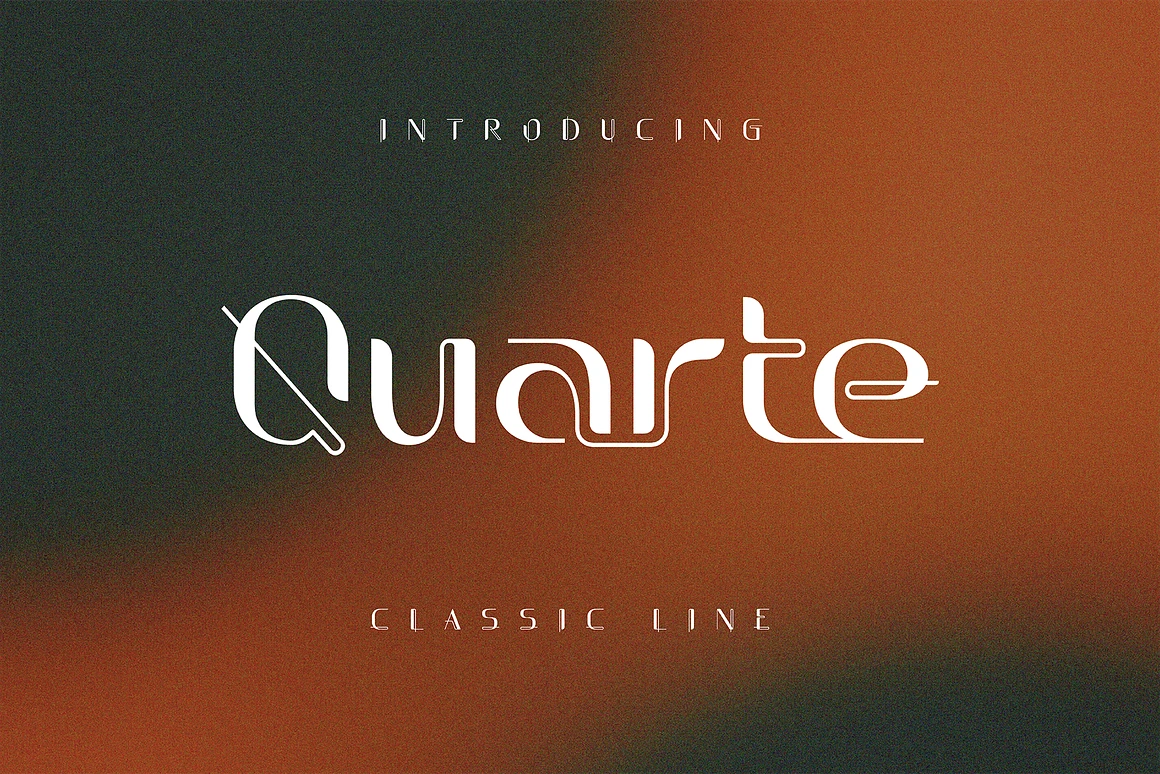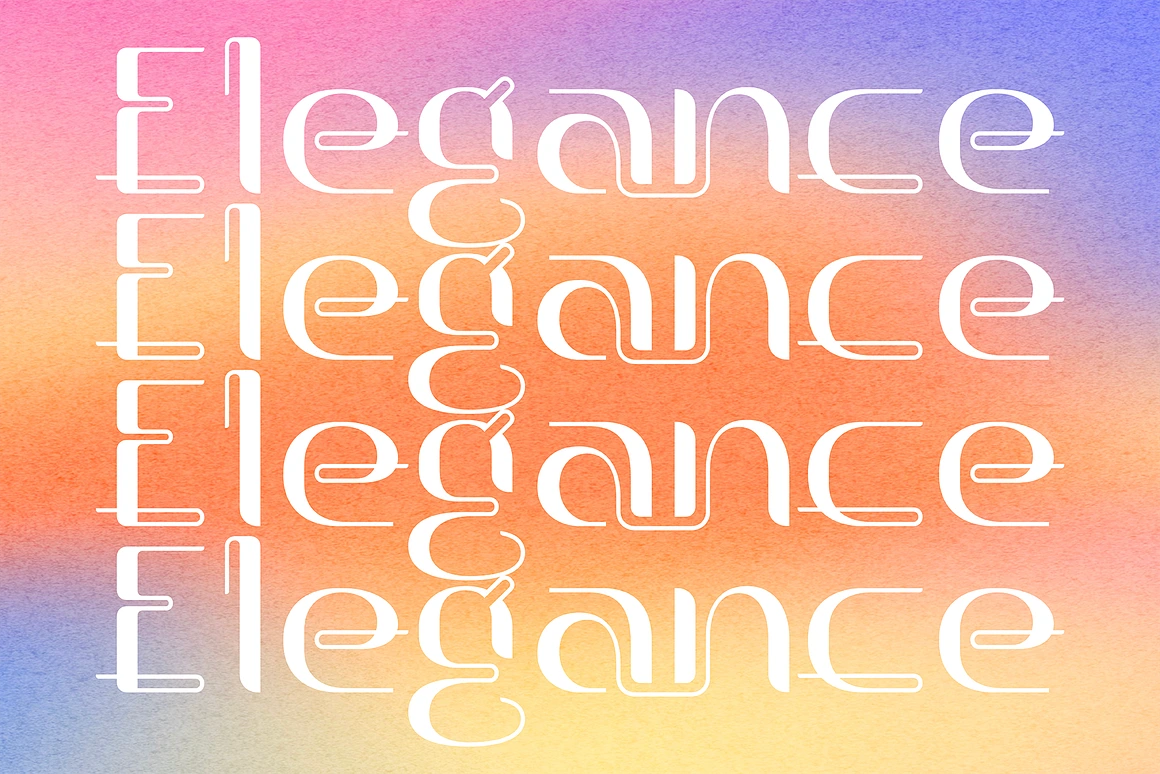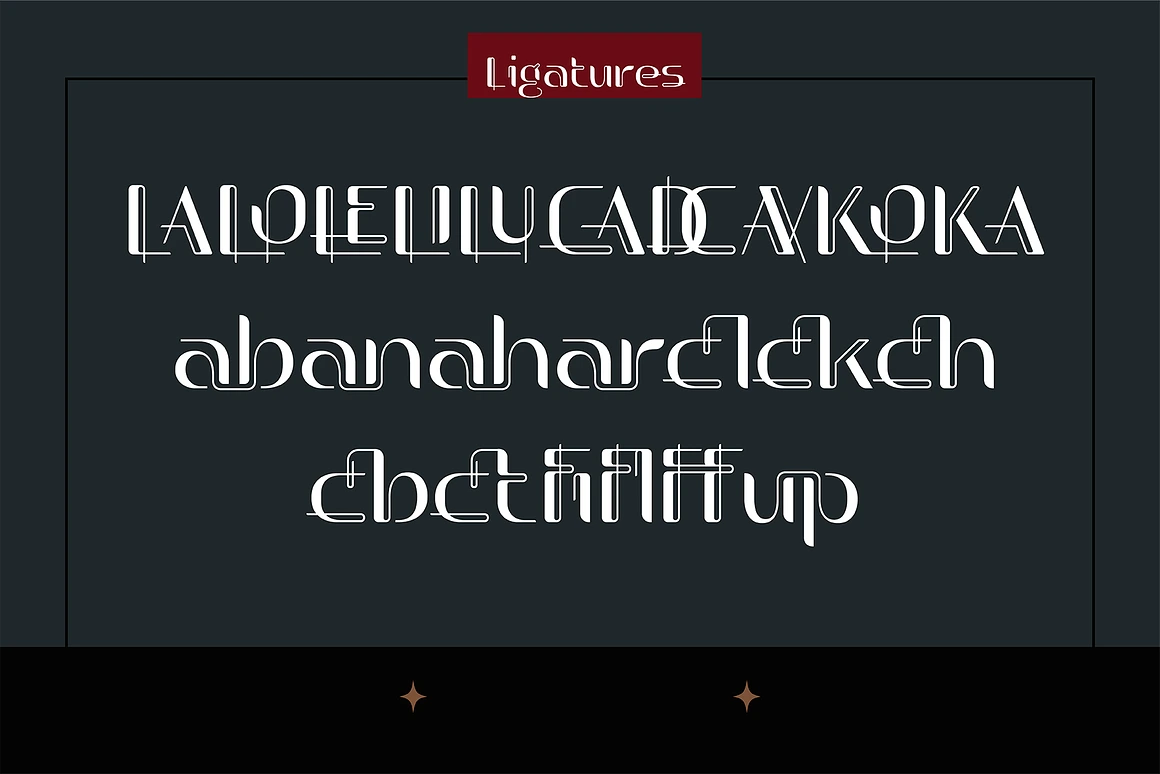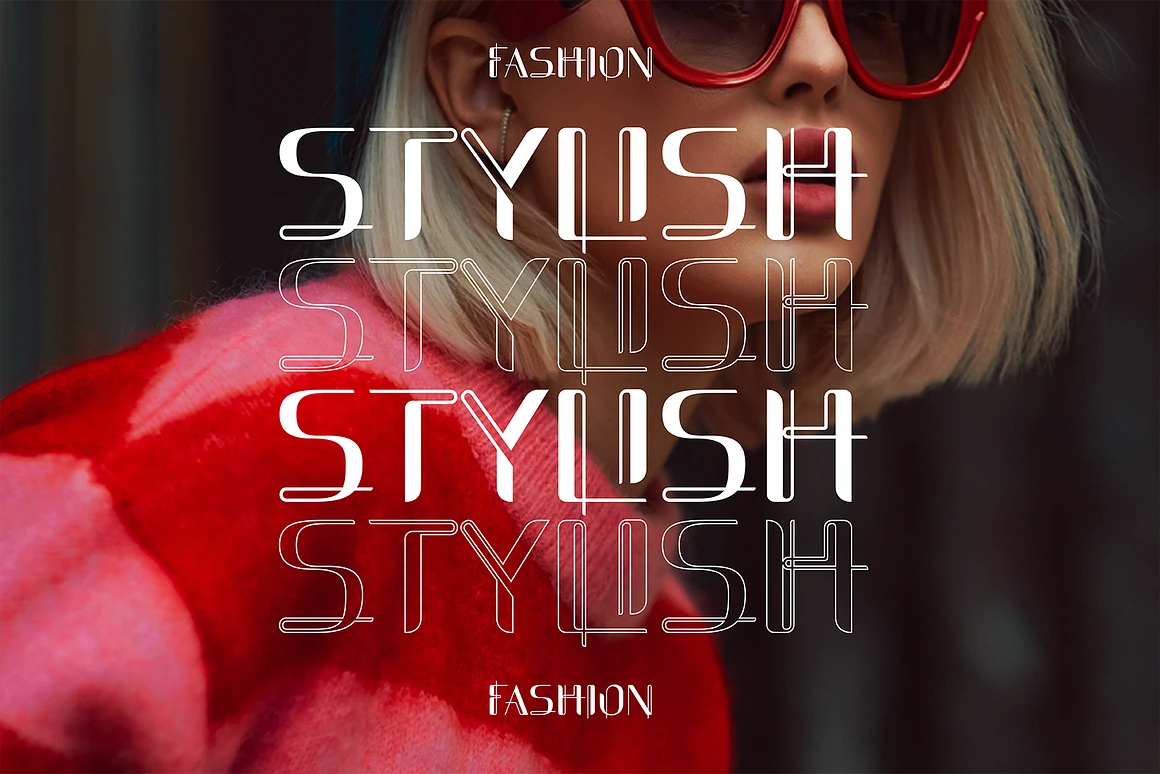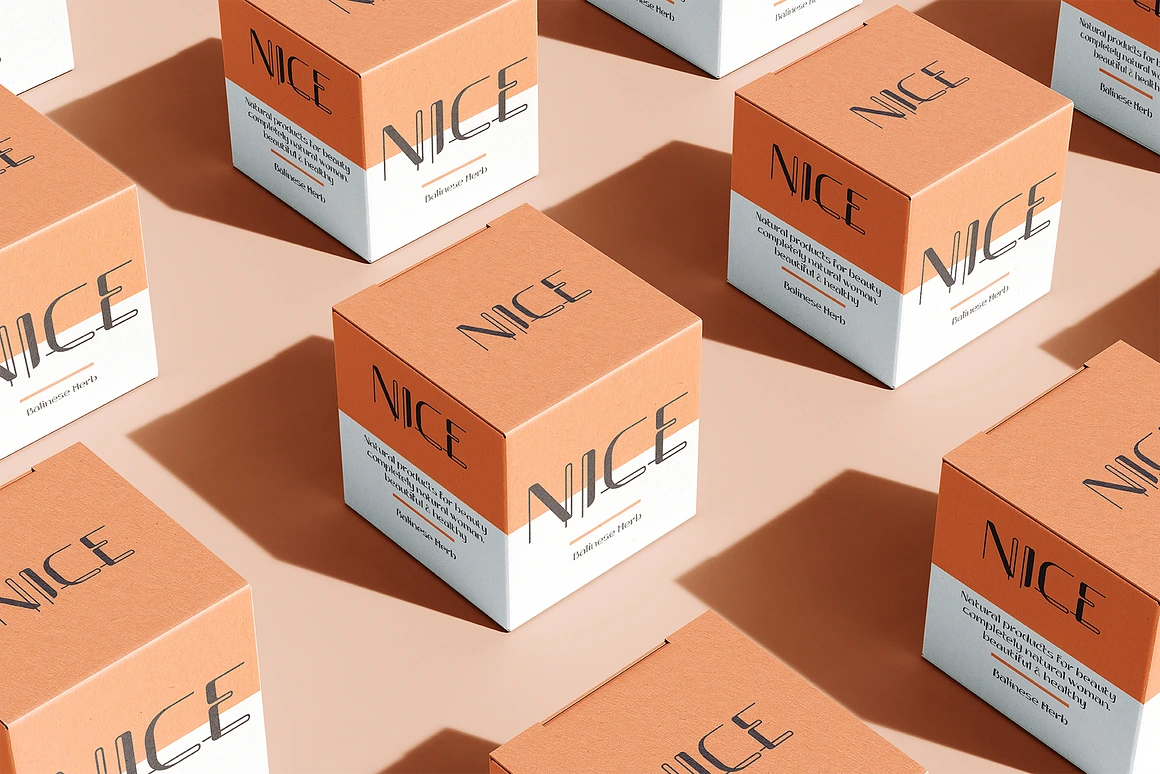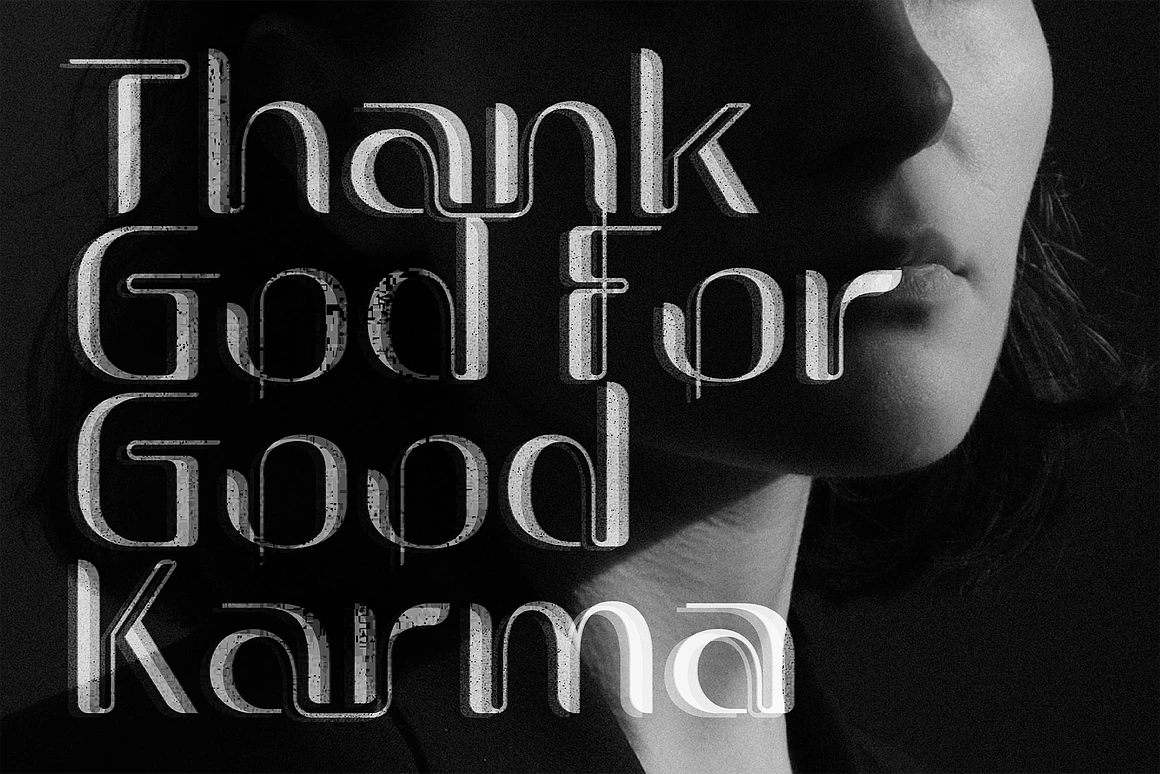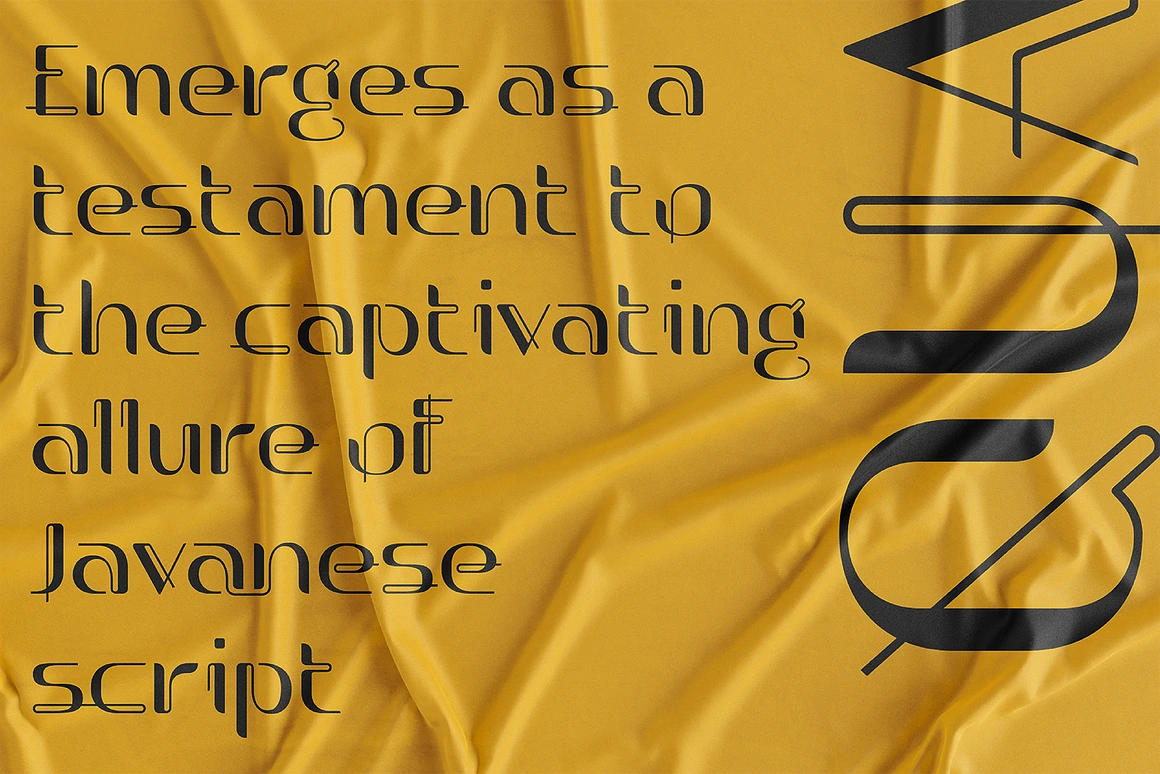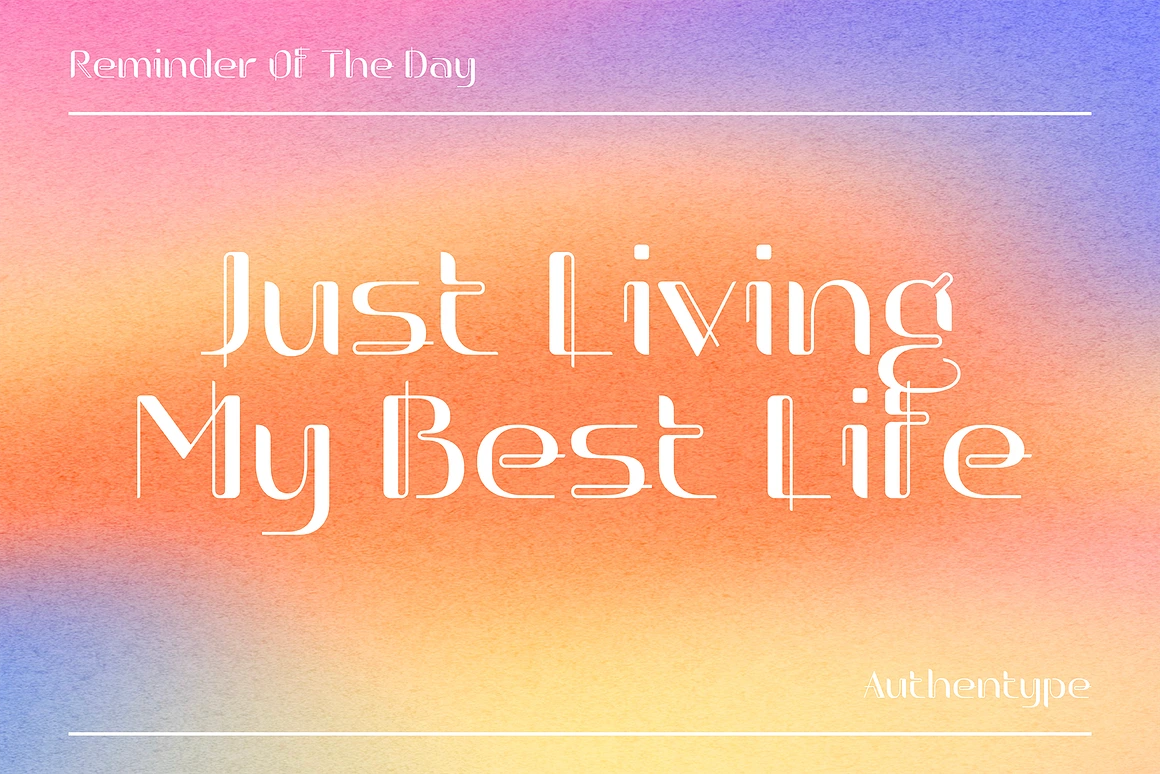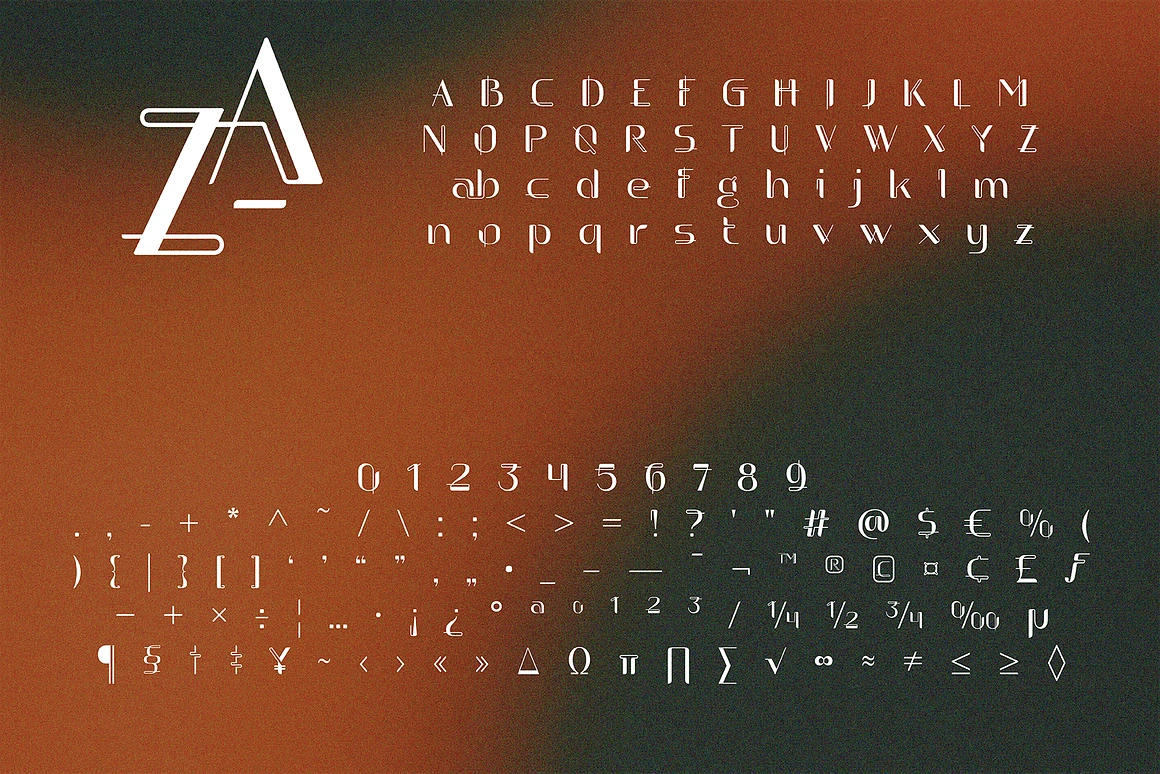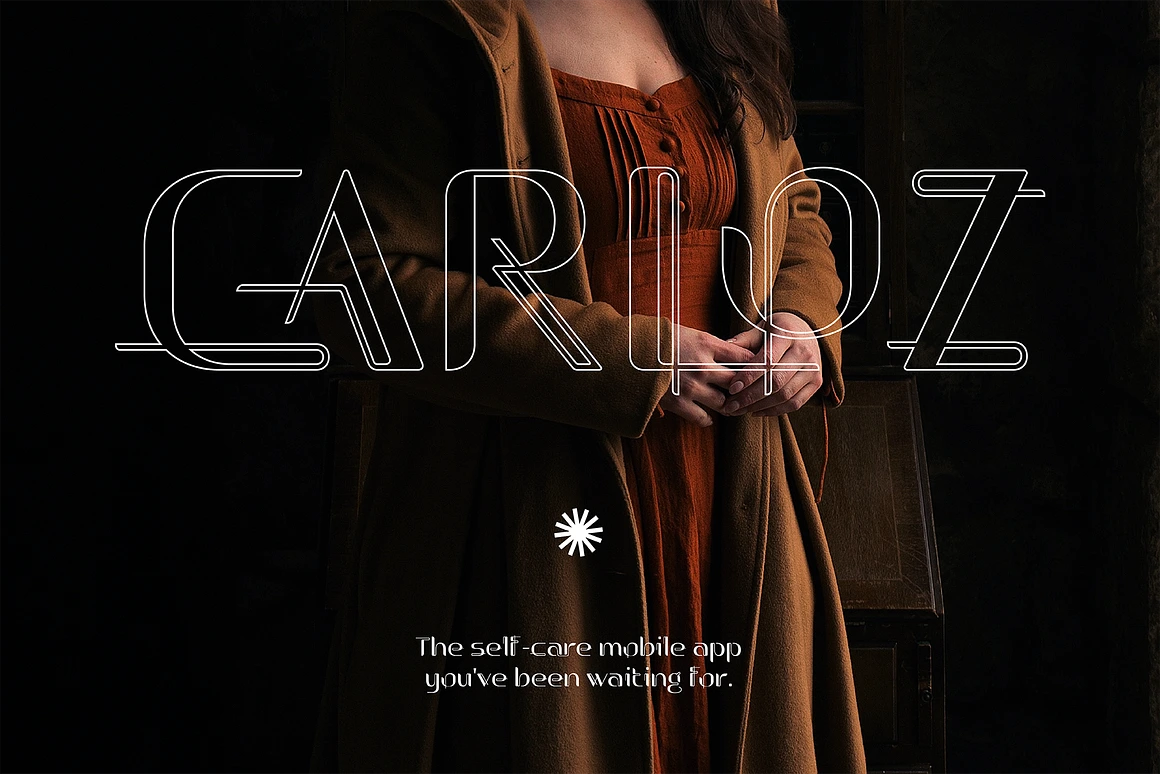
Quarte Unique Font
Quarte
Quarte is a unique font inspired by the captivating allure of Javanese script. Its graceful curves intertwine to create a typeface brimming with individuality and charm.
This extraordinary unique font reflects the rich cultural tapestry of Indonesia, delighting the senses with a visual symphony inspired by the nation’s abundant natural treasures.
Embark on a typographic journey where art and heritage converge, and discover a world where the written word takes on a mesmerizing life of its own.